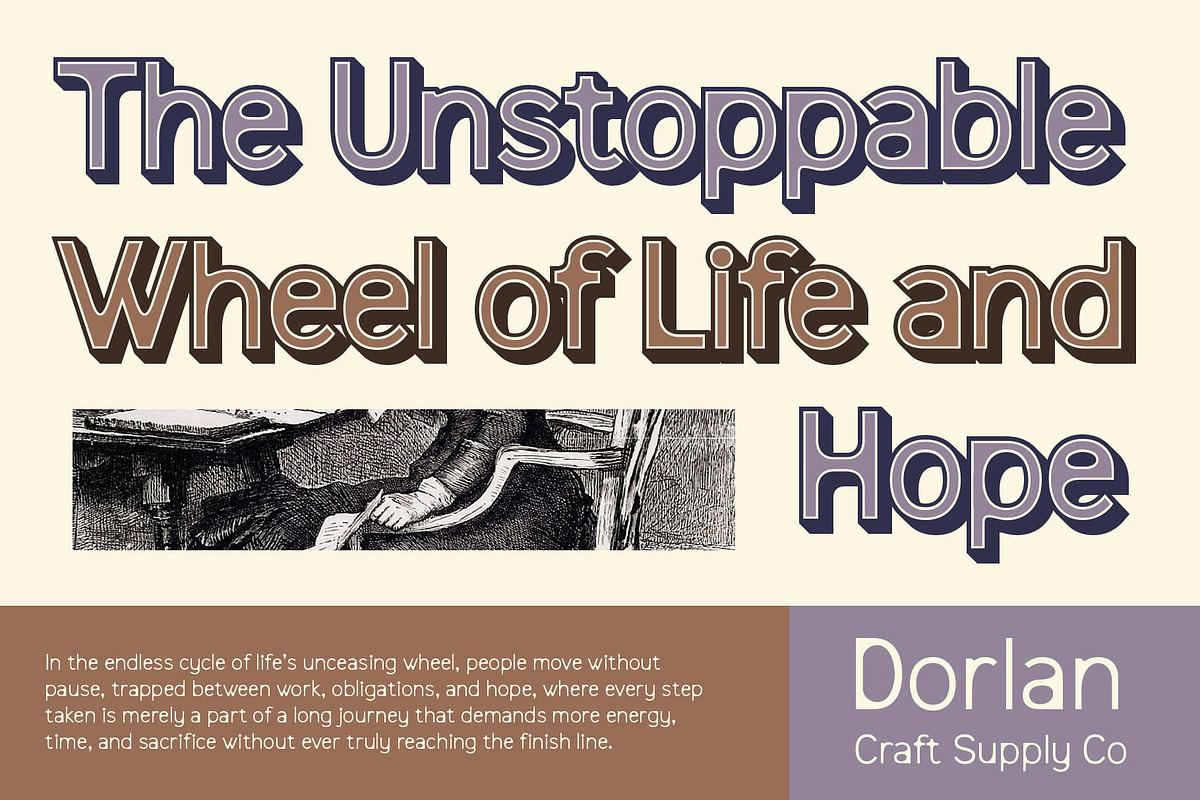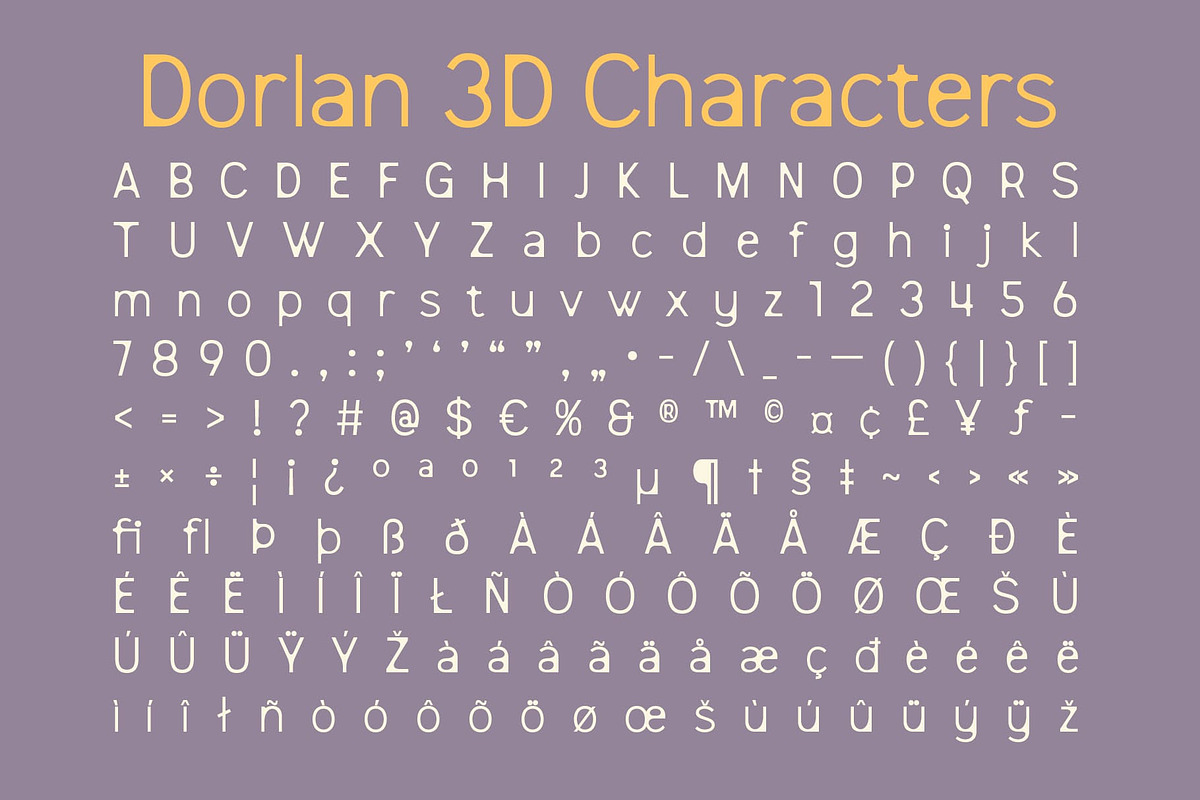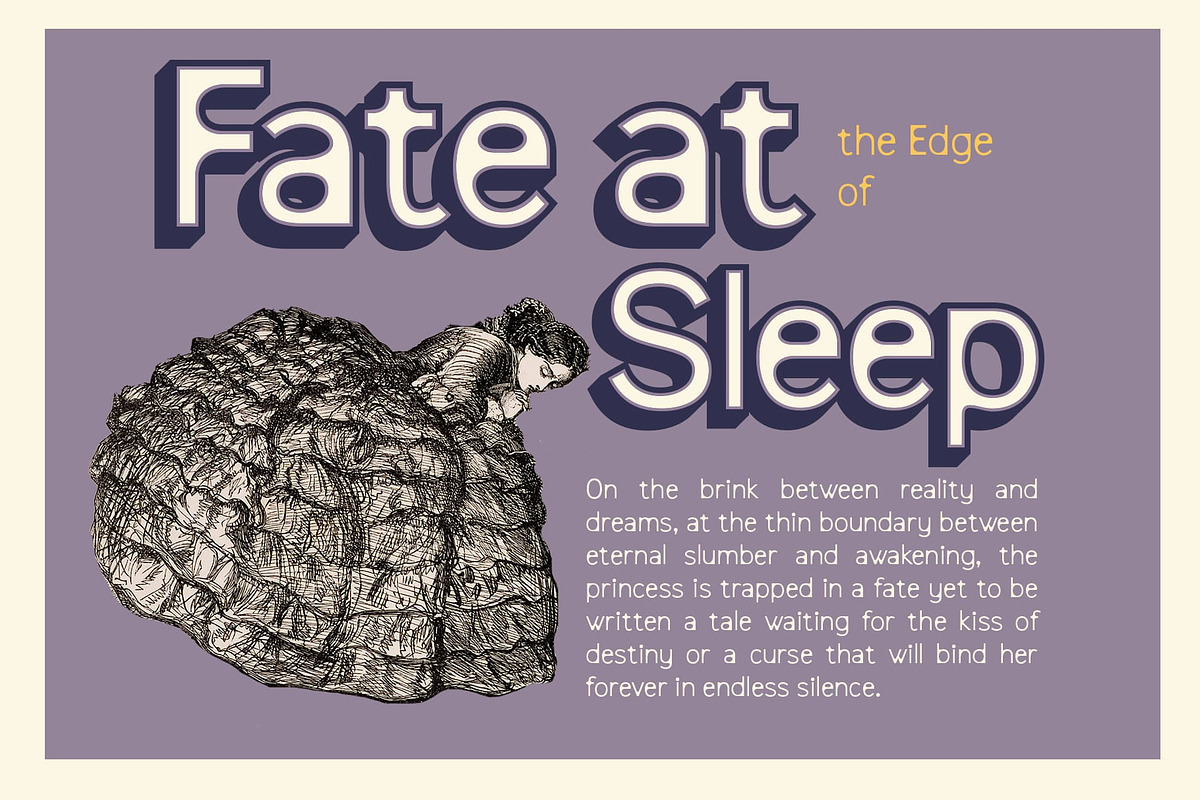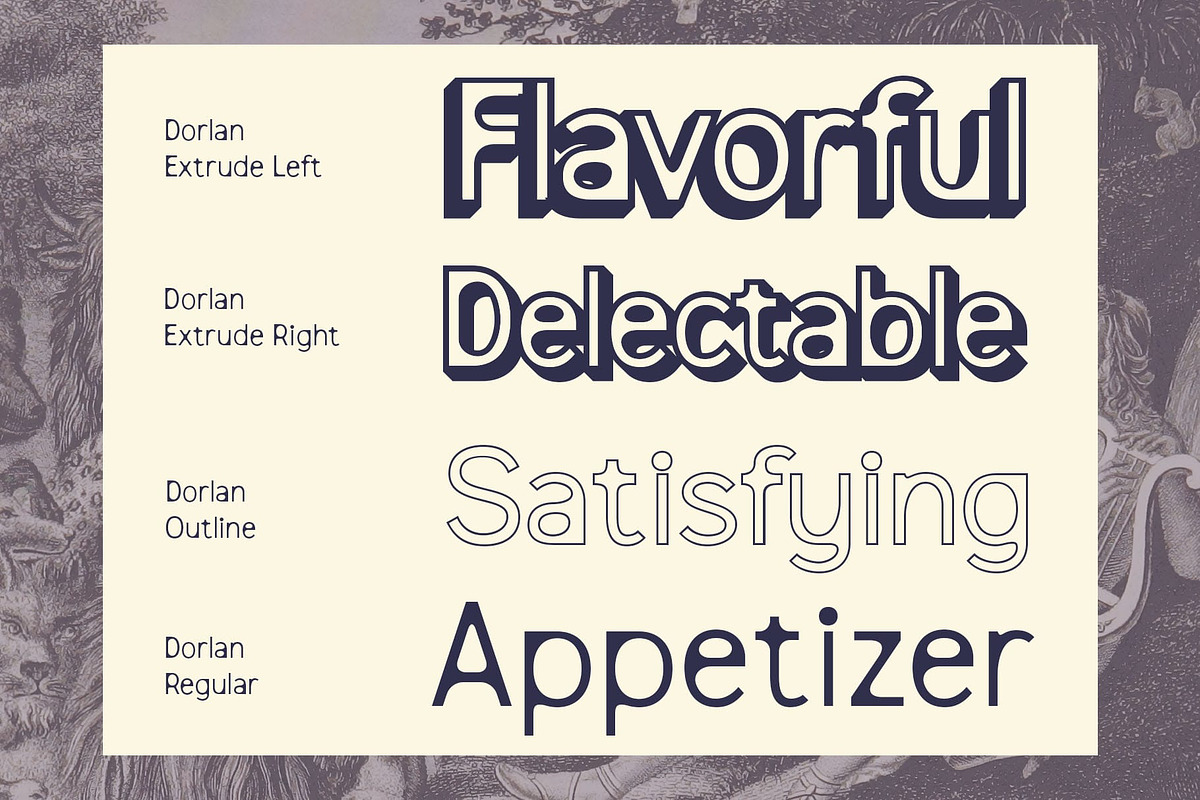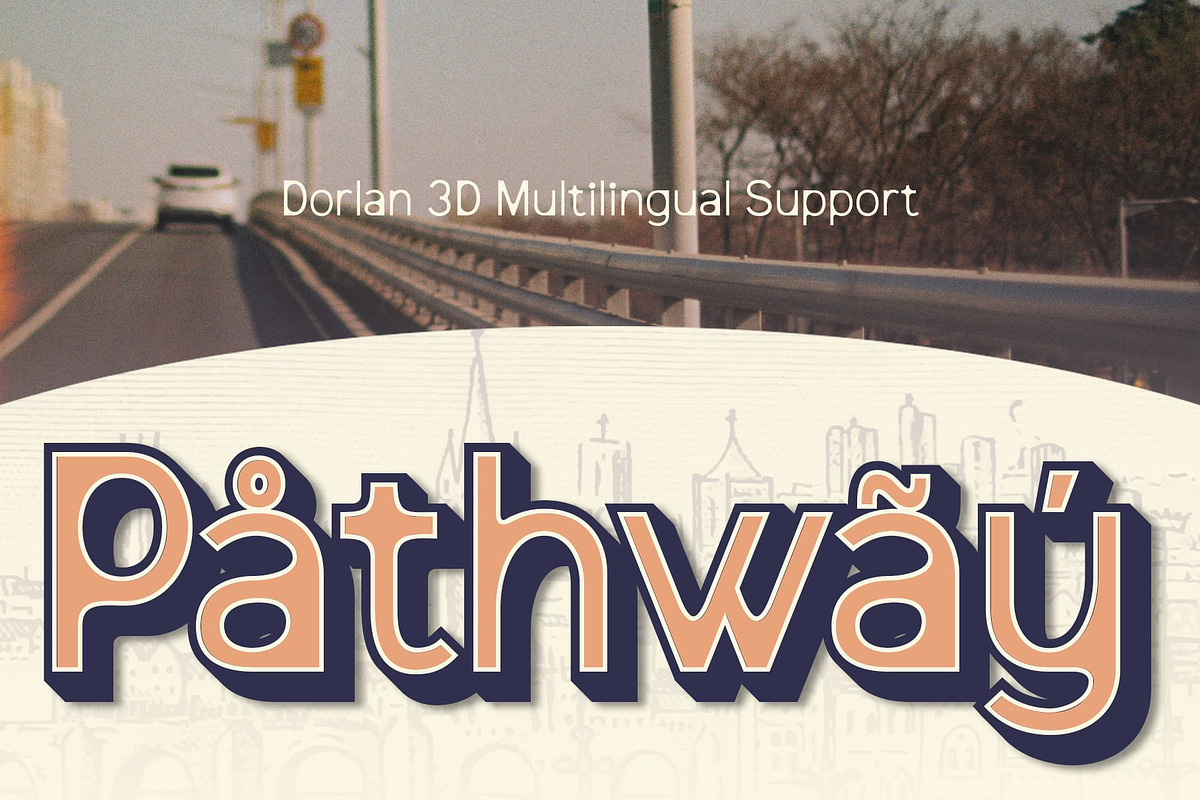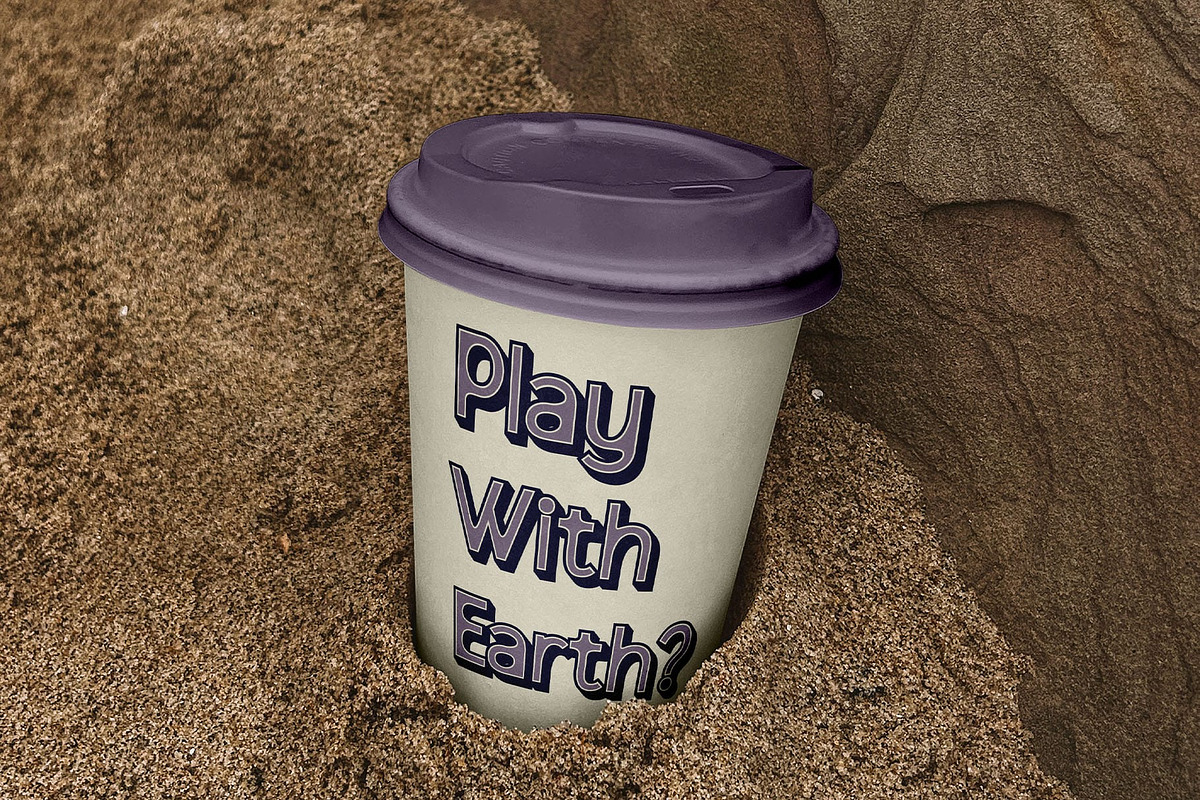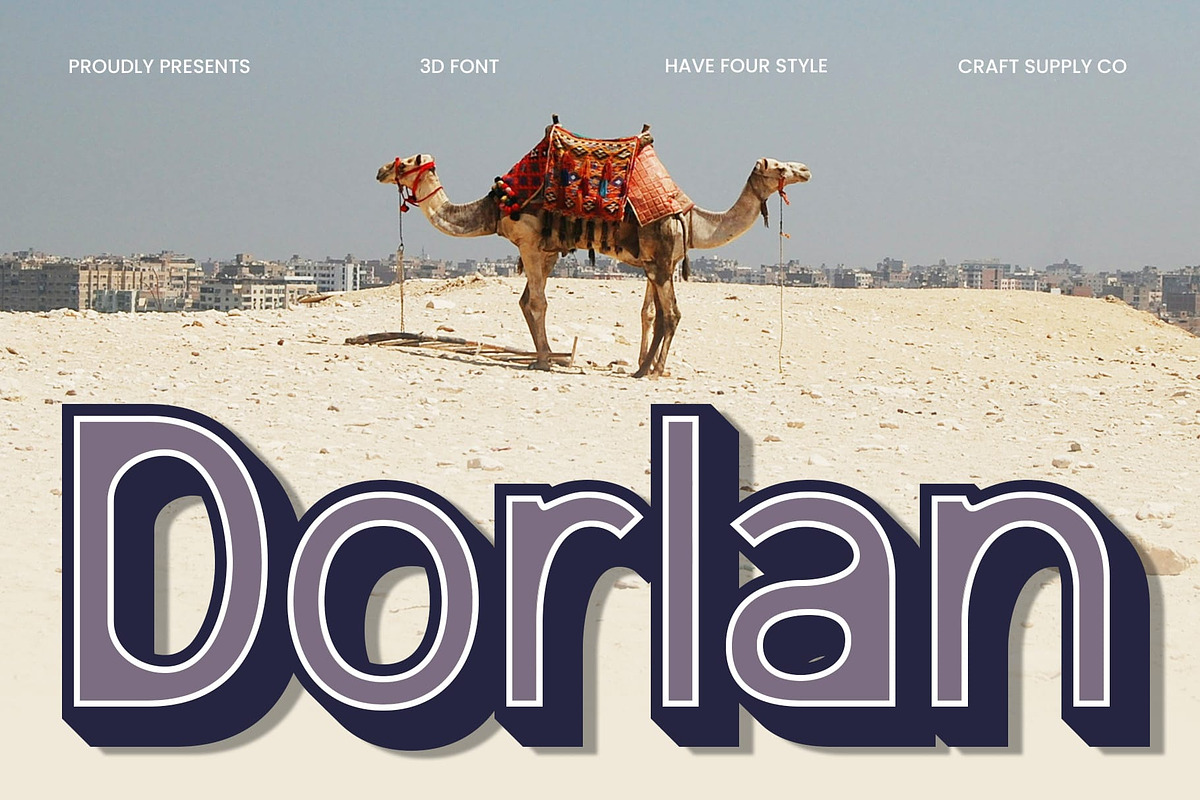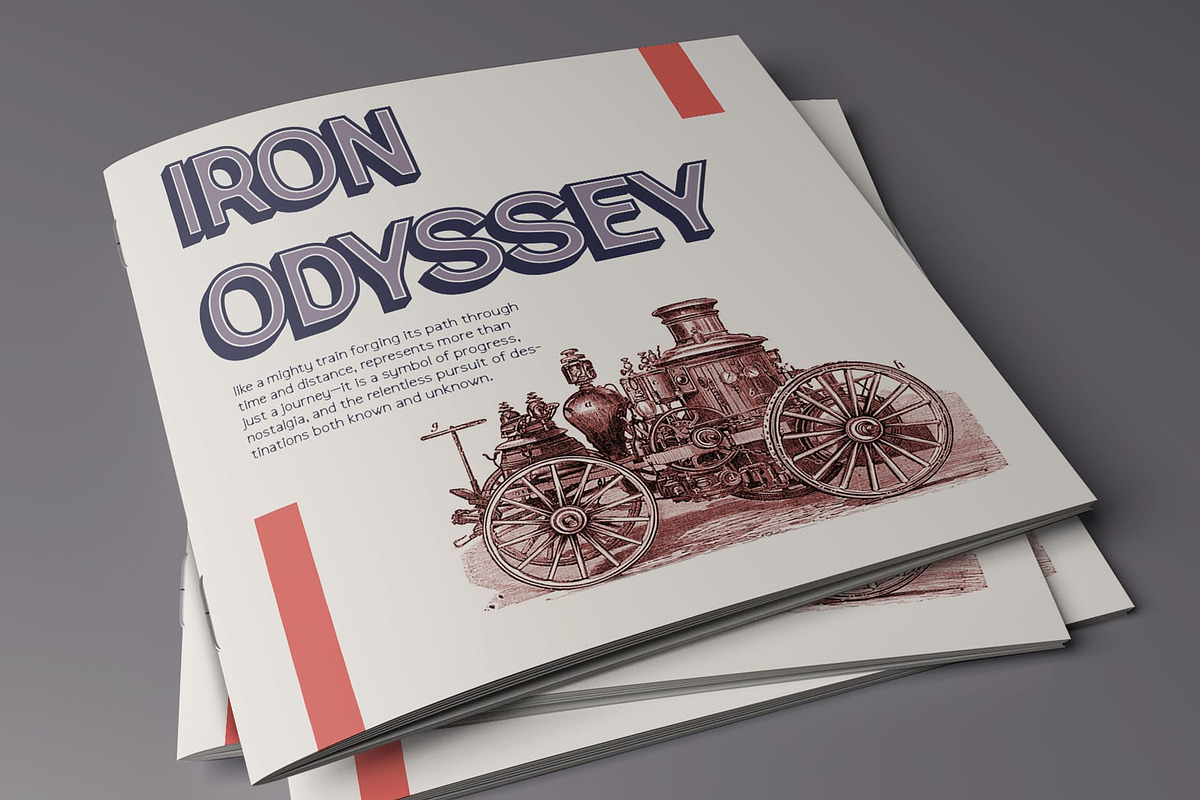
Dorlan 3D
Dorlan 3D Font: A Bold Fusion of Modernity and Dimension
Modern Sans-Serif with a 3D Effect Dorlan 3D is a modern sans-serif font featuring a striking 3D effect that enhances its bold and futuristic appeal. Designed with clean lines, precise geometry, and a contemporary structure, this font is perfect for projects that demand both clarity and depth. Its sleek yet dynamic form makes it ideal for cutting-edge designs in various industries, from technology to entertainment.
Futuristic and Dynamic Aesthetic With its sharp angles, structured proportions, and dimensional depth, Dorlan 3D creates a strong visual impact that exudes modernity and innovation. The three-dimensional form adds a sense of movement and realism, making it particularly effective for tech branding, gaming visuals, digital art, and futuristic layouts. Whether used for a high-tech interface or a bold marketing campaign, this font delivers an unmistakable presence.
Enhanced Visual Depth for Eye-Catching Designs Dorlan 3D brings text to life with realistic shadows, perspective shifts, and bold contours, ensuring a striking and engaging visual experience. The added depth provides an immersive quality, making it a great choice for posters, logos, and product packaging that need to stand out and captivate audiences. Its balance between legibility and artistic flair makes it versatile for both digital and print media.
- Dorlan Regular
- Dorlan Outline
- Dorlan Extrude Right
- Dorlan Extrude Left